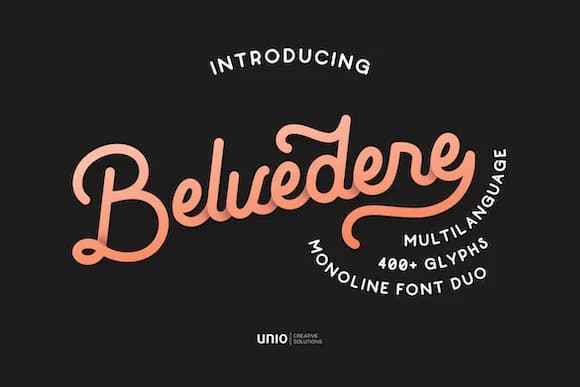
Belvedere Script, created by unio.creativesolutions, showcases flowing letterforms that genuinely feel hand-drawn rather than digitally perfect. The characters tilt and swirl with natural rhythm, paired here in two weights that let you layer delicate detail work with commanding headlines. This setup keeps the handwritten charm intact while giving you real design flexibility without sacrificing readability.
Wedding invitation suites benefit from these organic curves, especially when you want elegance without formality. Custom product labels for artisan goods and small-batch packaging read far more authentic than generic sans-serifs. Etsy shop branding signals handmade quality better with a script like this, and boutique event signage for upscale restaurants or wedding venues feels right with this aesthetic. The character variations give you enough breathing room to personalize across your brand system without losing visual consistency.
This typeface speaks to designers and small business owners hunting for genuine vintage character in their work. When your message needs human warmth instead of corporate polish, Belvedere delivers that feeling naturally. The script works across package design, social media templates, and brand collateral. Grab it from Creative Fabrica and add it to your working collection.
Belvedere Font is a script font that shines as a display or heading face. Pair it with a clean sans-serif or serif font for body text β the contrast creates a clear hierarchy while the two styles stay balanced and easy to read.
Belvedere Font